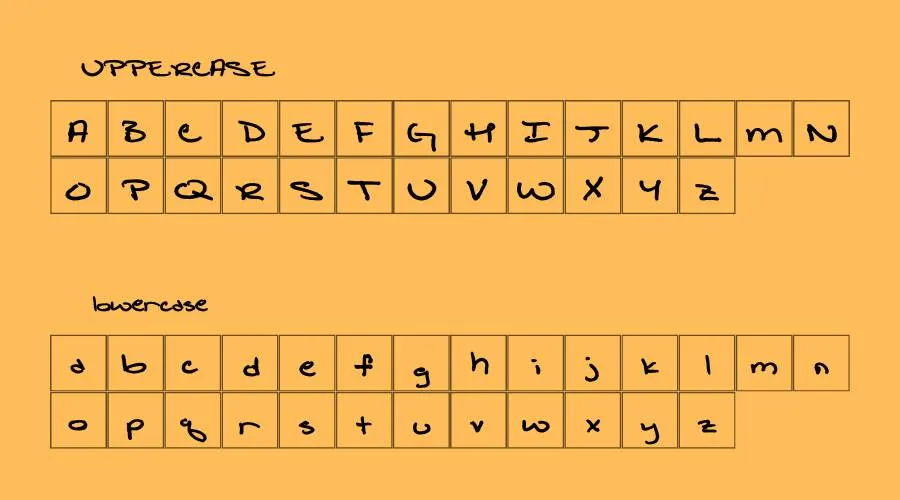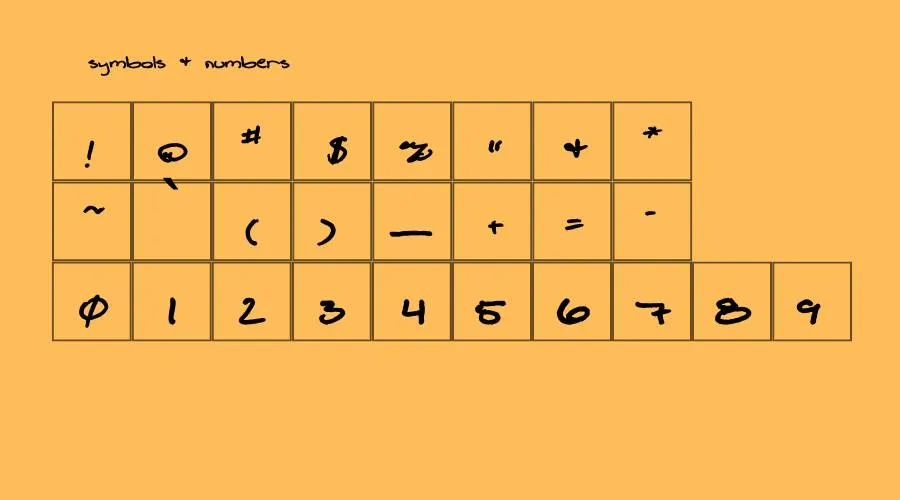
Shattered Print Font
About Shattered Print Font
Shattered Print Font is designed by Shatteredshards it is a script typeface with this font, you can create sophisticated, attractive, and unmistakable designs, which is ideal for marketing.
The font features have a traditional feel with a unique design. You’ll be able to utilize this typeface as a copy-and-paste function.
It contains both upper- and lower-case letters, numbers, and some punctuation marks. The text style is flawless as long as each design demands a fun and unusual feel. There are a variety of ways to use this style for social media posts.
This typeface could be an awesome choice for any venture that needs a touch of shine. You’ll produce this typeface from the online text style generator tool. The font corresponds to often utilized by creators to create designs that look lovely with desert dog hmk font.
This typeface is also appropriate for logo design projects involving individual information. As a means of evaluating the typeface, we selected 31 special characters, letters in upper and lower case, and the digits 0 to 10. Regardless of whether you view or print the letters, they will remain the same.
This typeface is additionally unique to work for your features and titling for your websites, and brands Because the look is extremely amazing. It is extensively utilized to create beautiful backgrounds. This font is also paired with the art times font.
The typeface is often utilized by many creators to generate their designs in a lovely manner. Because the look is extremely amazing. It is extensively utilized to create beautiful backgrounds.
You’ll be able to have this typeface into a CSS record for creating eye-catchy website content. In addition to creating posters, social media posts, and animated logos, you can also use this typeface.